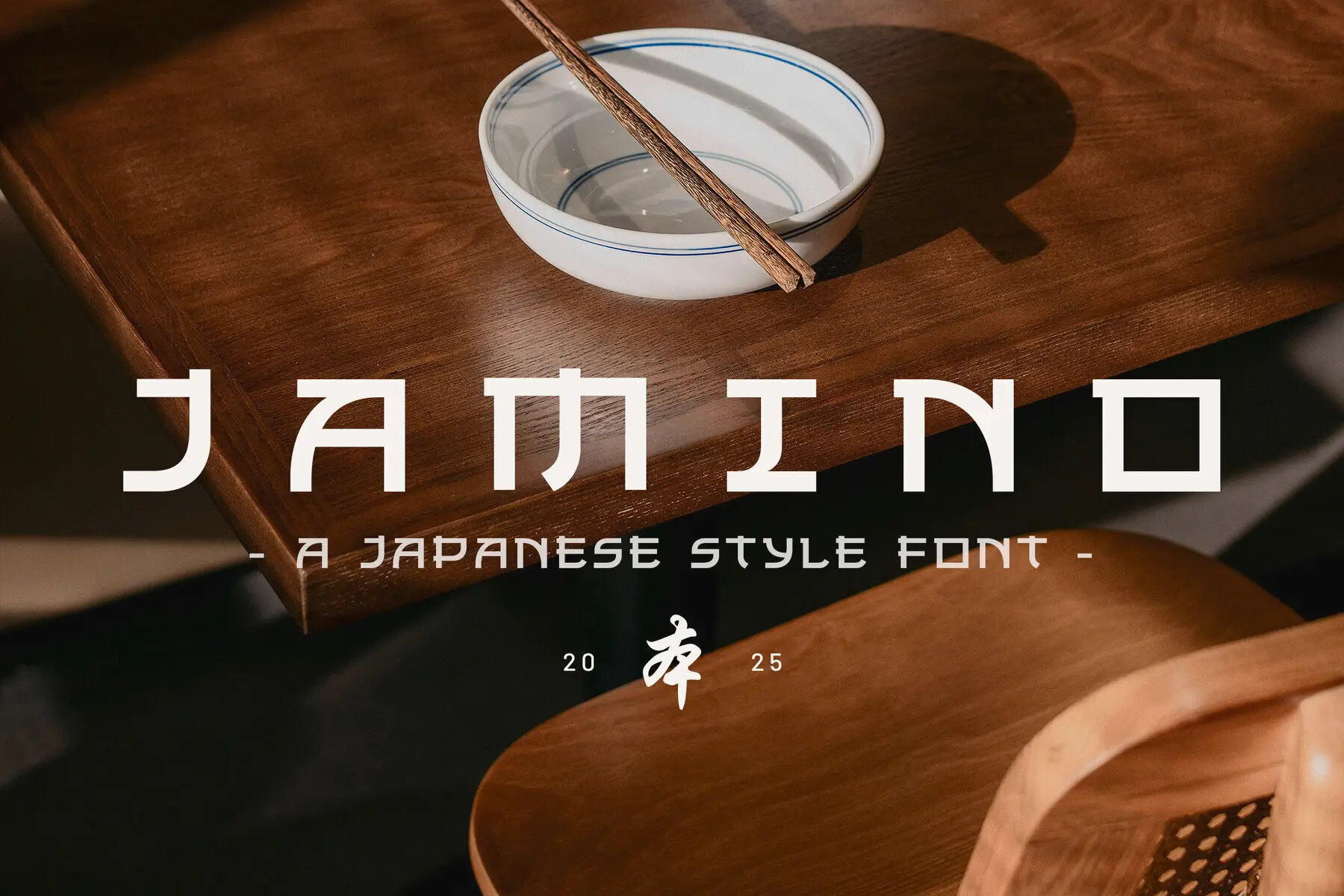
Jamino Font
Jamino Regular
Jamino is a striking serif font that reflects the grace of traditional Japanese aesthetics, blended with modern sophistication. Its crisp lines and minimalist structure make it perfect for an array of creative endeavors, including corporate branding, restaurant menus, luxury resort brochures, and dynamic e-commerce sites. Perfect for advertising campaigns, logo creation, and vibrant posters, Jamino delivers a bold and clear typographic voice that demands attention. With its full character set, unique ligatures, and multilingual support, this versatile font is your go-to choice for crafting memorable brand identities.Jamino – Modern Japanese-Inspired Display Font